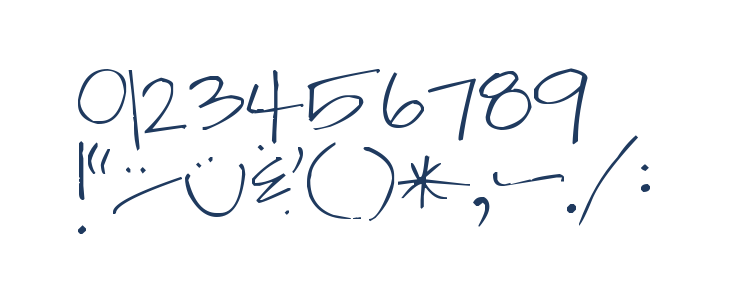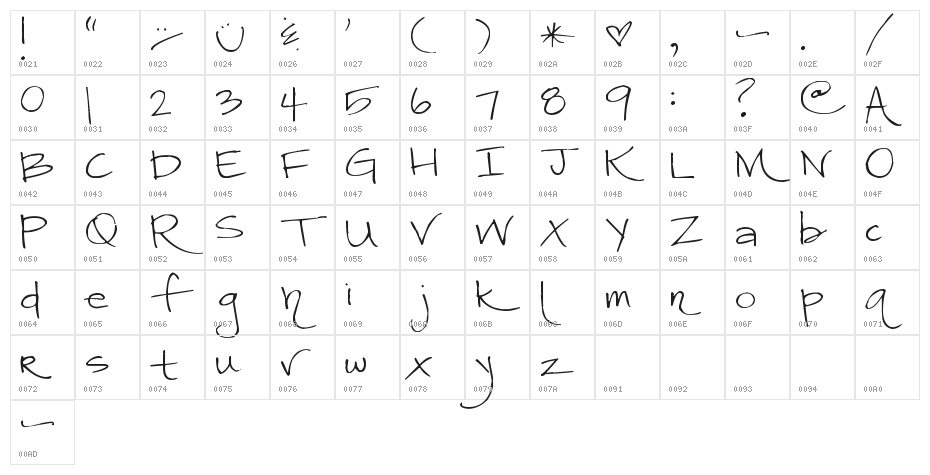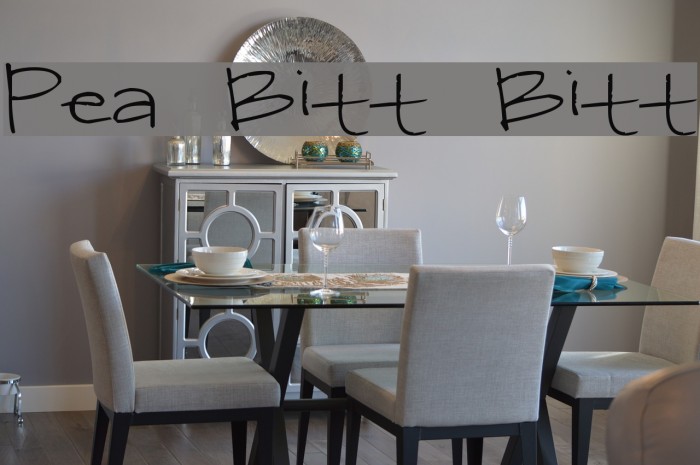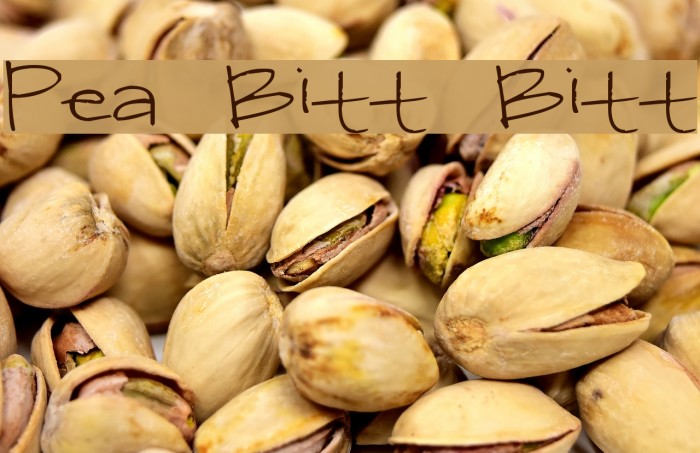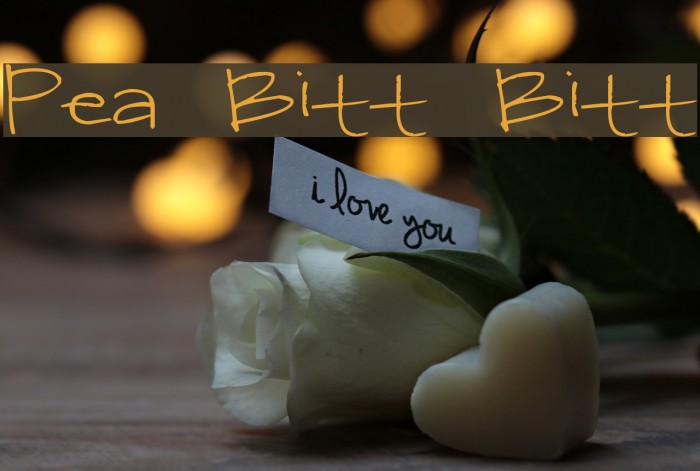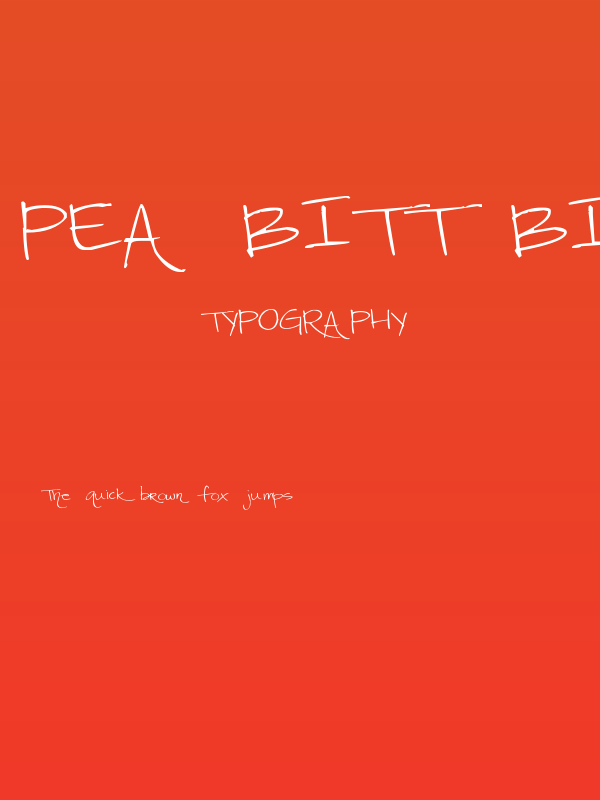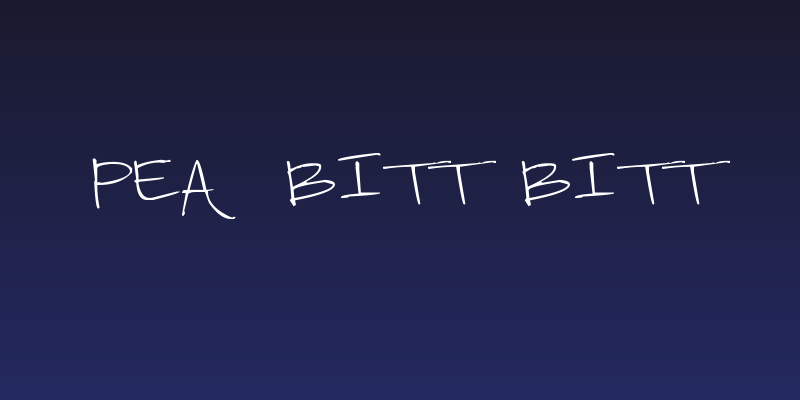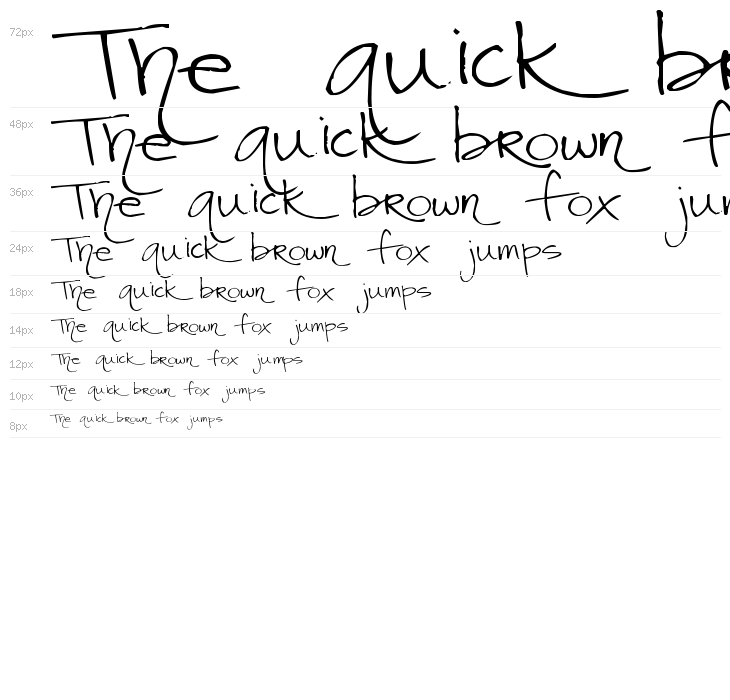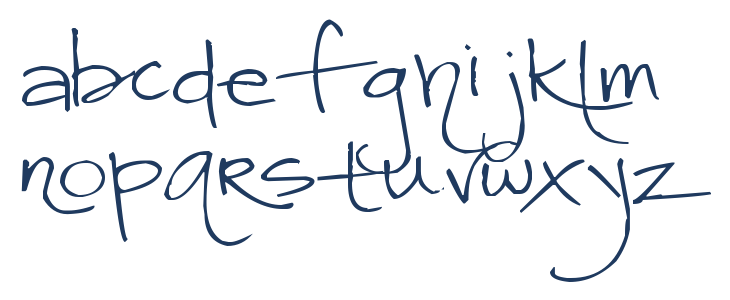
Pea Bitt Bitt Font
Pea Bitt Bitt Description
This playful and whimsical handwritten font exudes a casual and friendly vibe. The letters are characterized by their uneven strokes and slightly tilted orientation, giving it a dynamic and lively appearance. The uppercase and lowercase letters maintain a consistent style, with a natural flow that mimics authentic handwriting. The numbers and special characters are crafted with the same playful touch, ensuring a cohesive look throughout. This font is perfect for projects that require a personal and informal touch, such as greeting cards, invitations, or creative branding.
| Use Case | Logos, Invitations, Creative projects |
| Proposed Projects | Ideal for greeting cards, invitations, personal branding, and creative projects. |